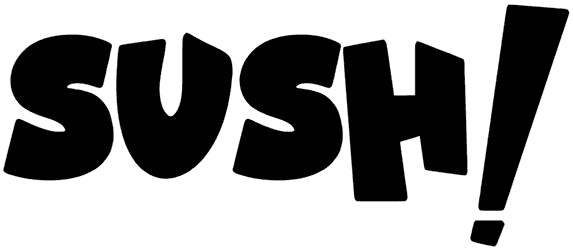
Sush! Font
Sush Font
If you intend to show real street art in your designs, we suggest you download Sush! font. This comic font, with its exaggerated thickness in letters, can create strength and power in any project. It’s also an all-in-one choice for children’s books, cartoons, and comics because of its playful look.
This font does not support lowercase letters, but it should be in the collection of any graphic designer who needs a solid and readable font.